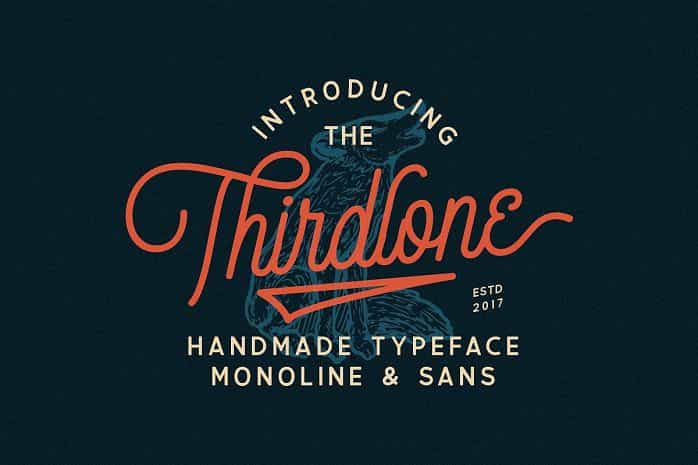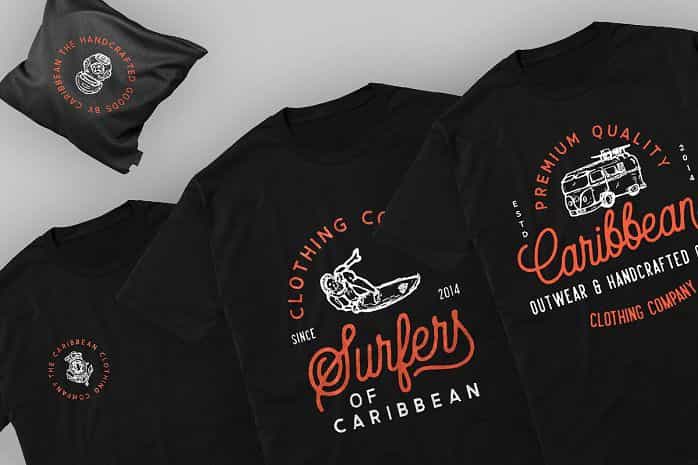
Discover Thirdlone Handmande Font, part of the Brush Calligraphy collection—a versatile and unique font perfect for adding a personal touch to your projects. Download it for free and enjoy crafting designs with style, from invitations to social media posts. This font is available exclusively for personal use, giving you the freedom to create without limits. Unlock your creativity with Thirdlone Handmande Font today!
Meet, Thirdlone Font. Made with mono-line and sans. This typeface is made for a fun, playful theme, and combined with more than a hundred hand drawn illustrations in vector format, you can easily pair them up and the lettering look amazing! It contains a 100++ object on variation theme including adventure, nature, animal, beach, sea, holiday, and many more. Perfect for lettering t-shirt design and logo branding appearance.